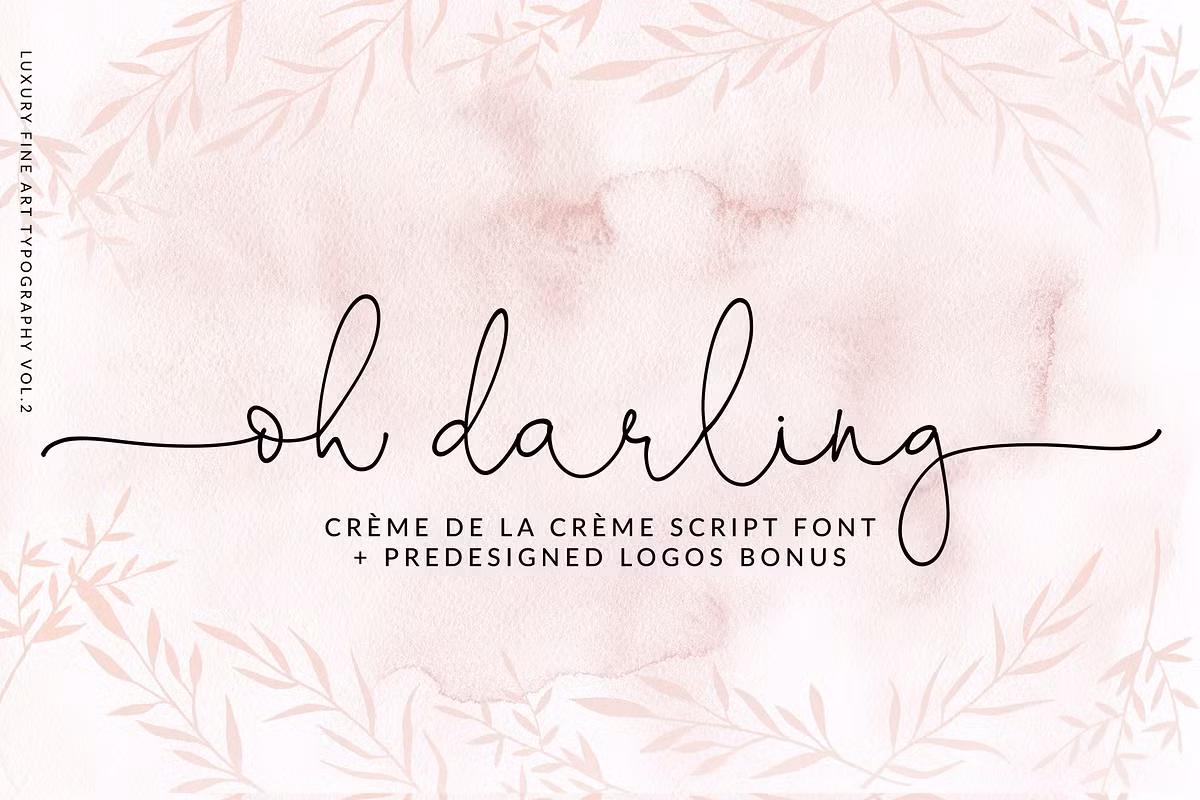
The Oh Darling - Ethereal Script Font Free Download is a graceful and elegant handwritten typeface designed to evoke a sense of lightness and beauty. Perfect for wedding invitations, branding, logos, social media posts, and delicate stationery, this font brings an ethereal, dreamy touch to your designs.
With its flowing curves and soft, flowing lines, Oh Darling adds a romantic and sophisticated feel to any project. It includes uppercase and lowercase letters, ligatures, punctuation, and multilingual support, offering versatility for a variety of design applications.